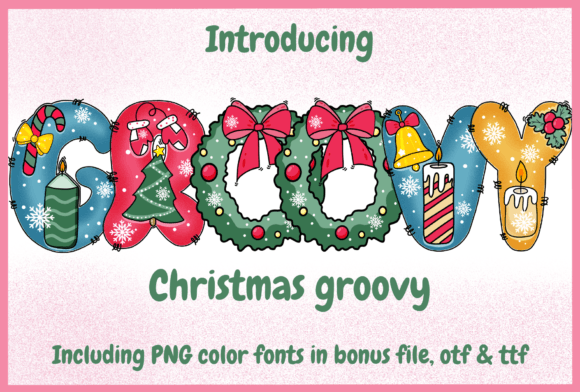
Christmas Groovy Font: The Ultimate Festive Font for Your Holiday Designs
Are you looking for a font that captures the essence of Christmas and adds a touch of groovy fun to your holiday designs? Look no further than the Christmas Groovy font! This festive and decorative font is perfect for creating holiday cards, banners, and other festive designs that will make your text dance with the joy of the season.
What is Christmas Groovy Font?
Christmas Groovy font is a specially designed font that combines the spirit of Christmas with a fun and groovy vibe. Each character in the font is carefully crafted to include delightful Christmas elements like snowflakes, ornaments, and more. The font is perfect for anyone looking to add a touch of holiday cheer to their designs.
Key Features of Christmas Groovy Font
- Festive and Decorative: Christmas Groovy font is designed to add a touch of festivity and fun to your designs.
- Delightful Christmas Elements: Each character in the font includes delightful Christmas elements like snowflakes, ornaments, and more.
- Perfect for Holiday Designs: The font is perfect for creating holiday cards, banners, and other festive designs.
Design Tips for Using Christmas Groovy Font
- Pair with Other Festive Fonts: Pair Christmas Groovy font with other festive fonts to create a unique and eye-catching design.
- Use on Holiday Cards and Banners: Use Christmas Groovy font on holiday cards and banners to add a touch of festive fun.
- Experiment with Colors: Experiment with different colors to find the perfect combination for your design.
Benefits of Using Christmas Groovy Font
There are many benefits to using Christmas Groovy font in your holiday designs. Here are just a few:
Benefits of Christmas Groovy Font
- Adds a Touch of Festive Fun: Christmas Groovy font adds a touch of festive fun to your designs, making them perfect for the holiday season.
- Unique and Eye-Catching: The font is unique and eye-catching, making your designs stand out from the crowd.
- Easy to Use: The font is easy to use, making it perfect for designers of all levels.
- Perfect for Holiday Marketing: The font is perfect for holiday marketing campaigns, adding a touch of festive fun to your ads and promotions.
Christmas Groovy Font in Holiday Marketing
Christmas Groovy font is perfect for holiday marketing campaigns. The font adds a touch of festive fun to your ads and promotions, making them stand out from the crowd.
Marketing Tips for Using Christmas Groovy Font
- Use on Social Media: Use Christmas Groovy font on social media to add a touch of festive fun to your posts and ads.
- Use on Email Campaigns: Use Christmas Groovy font on email campaigns to add a touch of festive fun to your emails.
- Use on Website: Use Christmas Groovy font on your website to add a touch of festive fun to your holiday promotions.
Christmas Groovy font is the ultimate festive font for your holiday designs. With its delightful Christmas elements and groovy vibe, the font is perfect for adding a touch of festive fun to your holiday cards, banners, and other designs.